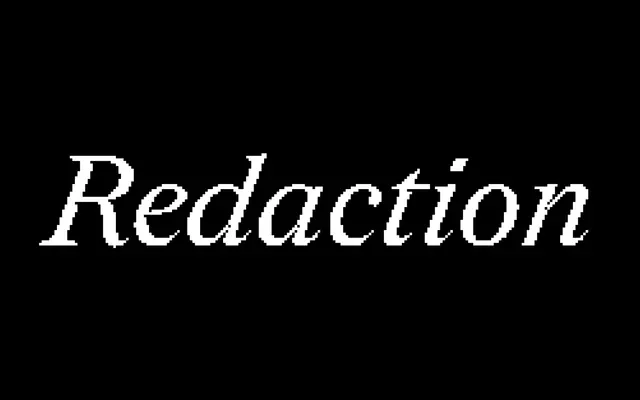
Redaction
A commissioned typeface for a MoMA PS1 art-legal collaboration, built on US courtroom typography and progressively degraded across seven bitmap optical grades.
Designed by Jeremy Mickel for Titus Kaphar and Reginald Dwayne Betts' 'The Redaction' project at MoMA PS1, the family responds to the unconstitutional cash bail system by drawing on Times New Roman and Century Schoolbook. Seven optical grades from crisp text to heavily pixelated bitmap simulate the degradation of documents through the legal system, each available in Regular, Italic and Bold. The fonts are free for personal use, with the full 21-style family available for commercial licensing.
Redaction draws directly from US legal typography traditions, citing Times New Roman and Century Schoolbook as references, placing it firmly in the transitional serif category. The bitmap optical grades add a degraded quality distinct from either source, but the underlying structure remains transitional.